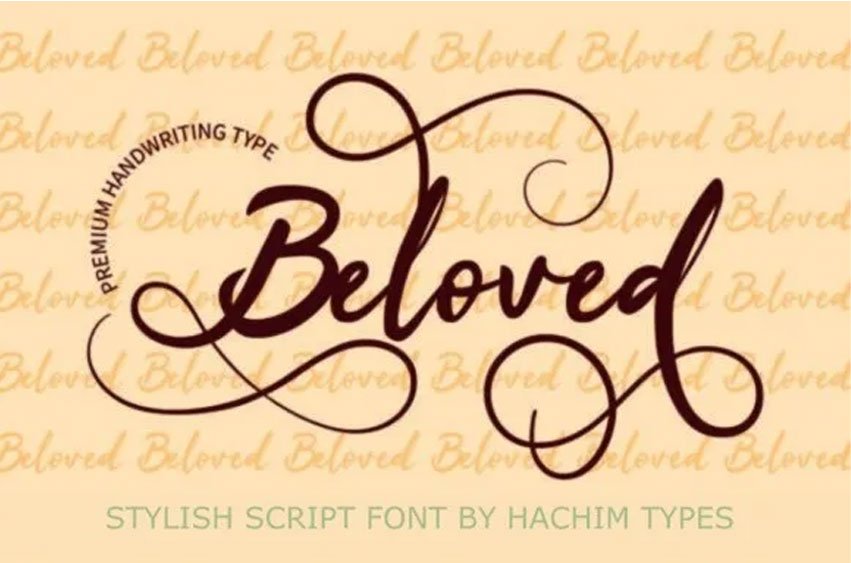
Beloved Font is a romantic and sweet calligraphy typeface with characters that dance along the baseline. It will add a luxury spark to any design project that you wish to create!